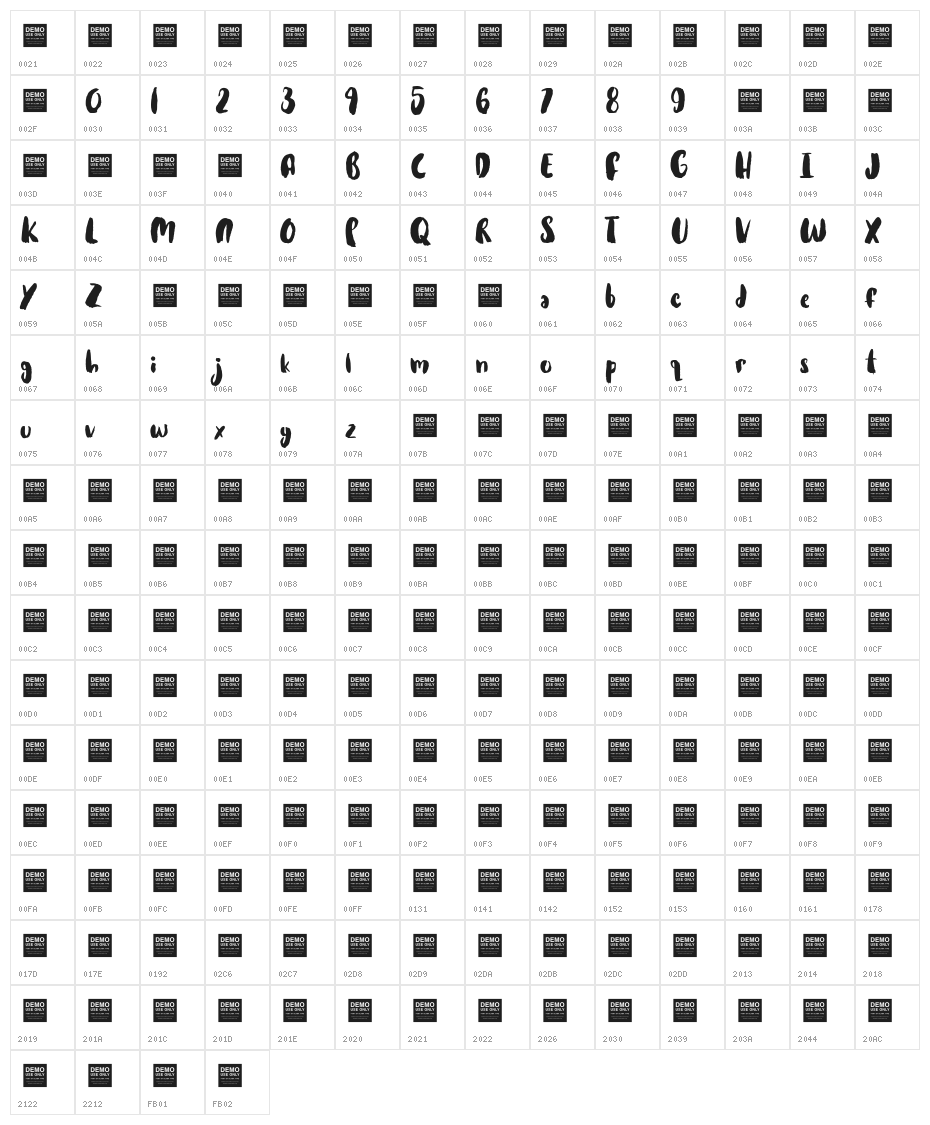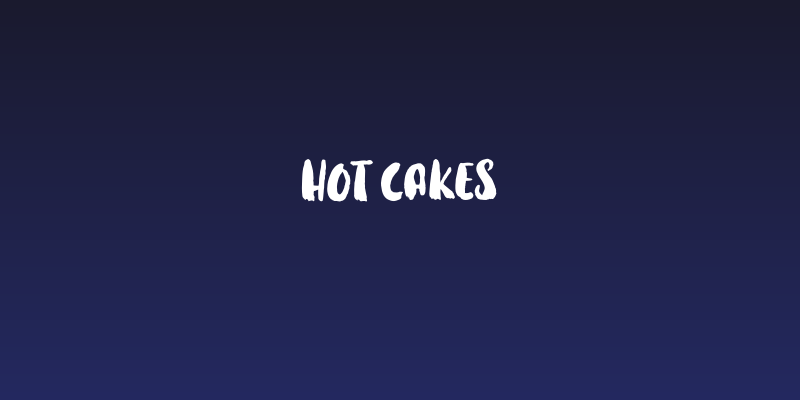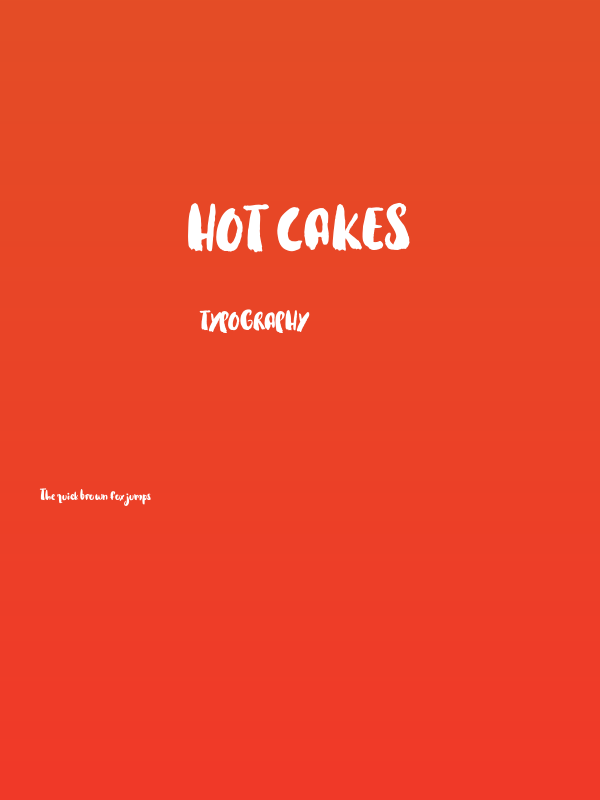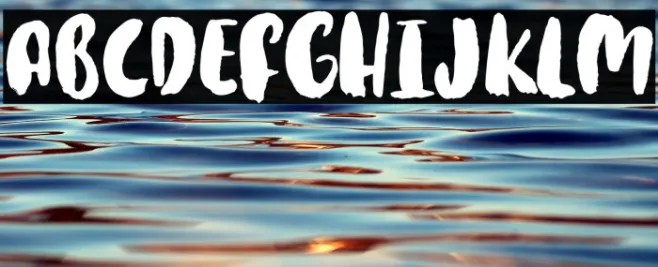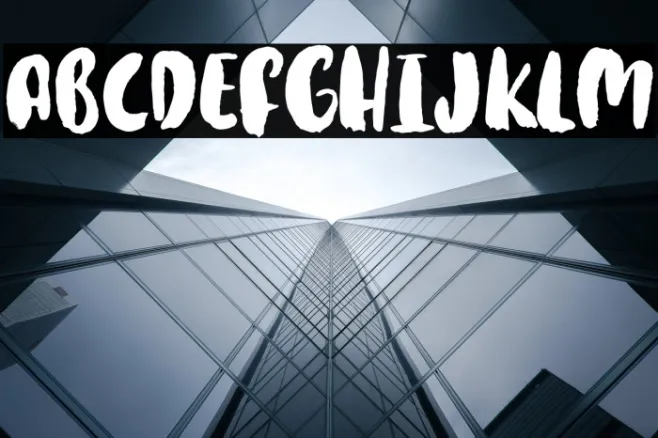
Hot Cakes Font
Hot Cakes Description
This font features a bold, brush-like style with a hand-painted appearance. The characters are thick and expressive, with a slightly irregular baseline that adds to its dynamic and artistic feel. The strokes are bold and fluid, giving the font a lively and energetic personality. The uppercase and lowercase letters maintain a consistent style, with rounded edges and a playful, informal look. The numbers and special characters follow the same design principles, ensuring a cohesive appearance across all elements. This font is perfect for projects that require a personal touch or a creative flair.
| Proposed Projects | Ideal for creative projects such as posters, invitations, branding, and packaging that require a personal and artistic touch. |